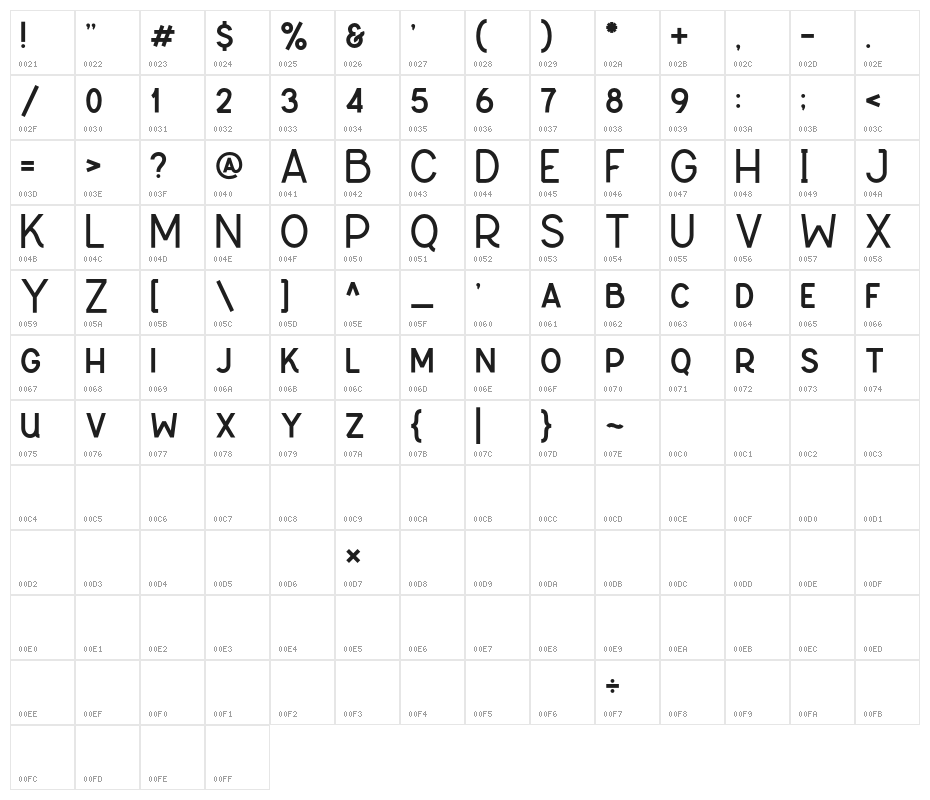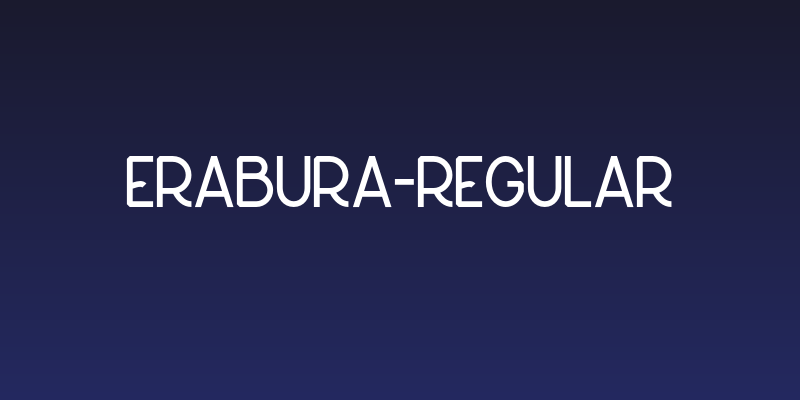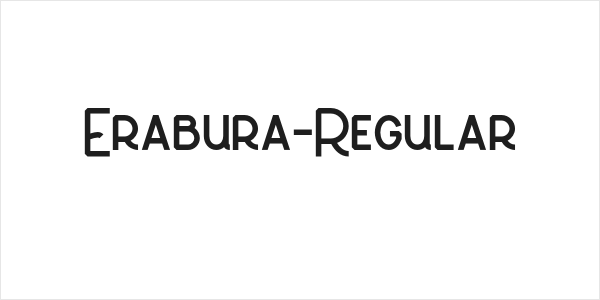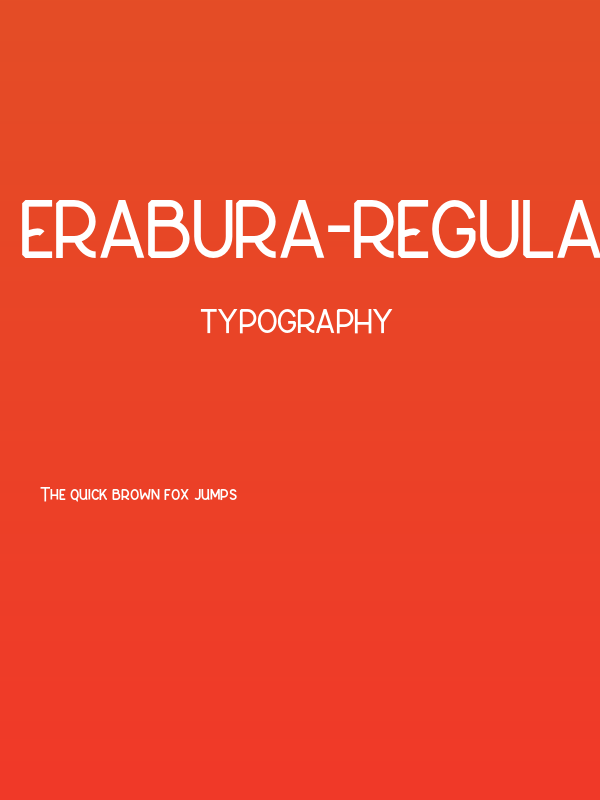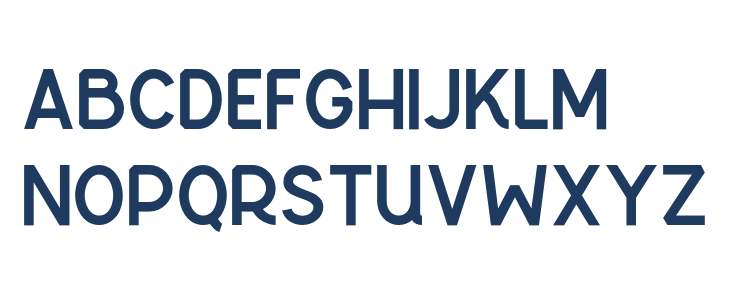
Erabura-Regular Font
Erabura-Regular Description
This font features a bold, geometric sans-serif style with clean lines and a modern aesthetic. The characters are well-balanced, with consistent stroke widths that give it a uniform appearance. The uppercase letters are slightly taller than the lowercase, providing a strong visual hierarchy. The numerals are clear and easy to read, making them suitable for various applications. Special characters are designed with the same attention to detail, ensuring they integrate seamlessly with the rest of the typeface. Overall, this font exudes a contemporary and professional feel, making it versatile for both digital and print media.
| Proposed Projects | Ideal for branding, advertising, web design, and editorial projects where a clean and modern look is desired. |